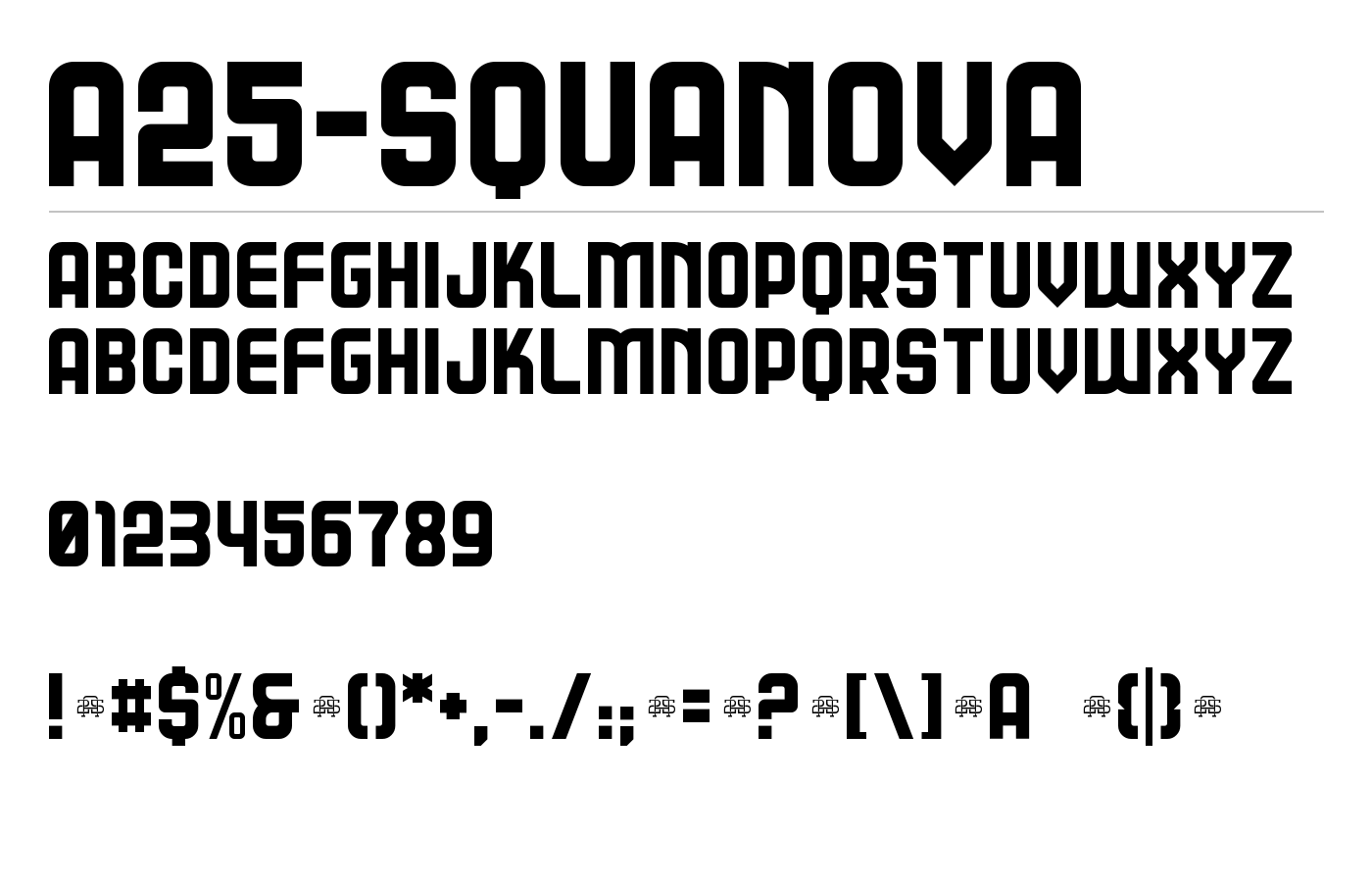
A25-SQUANOVA is a bold, condensed sans serif font featuring strong geometric shapes and a modern industrial vibe. Its tall, narrow letterforms with minimal contrast and sharp angles give it a striking, futuristic look ideal for impactful headlines, logos, and branding projects that want to convey strength and innovation. This font works well in display contexts where a distinctive, assertive style is desired.
A25-SQUANOVA Font